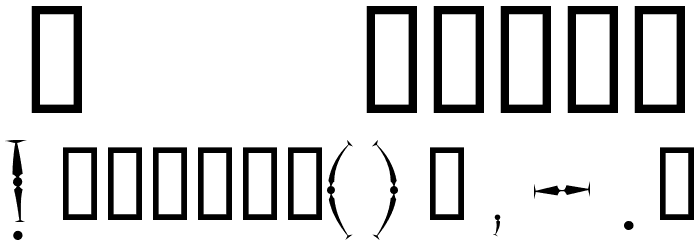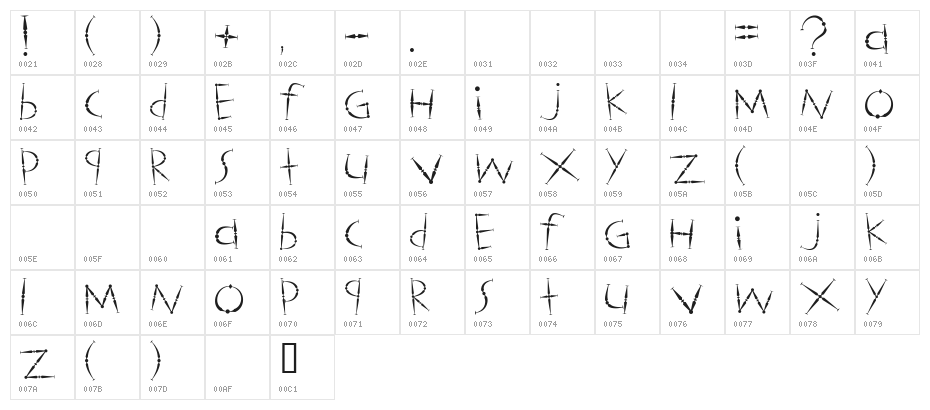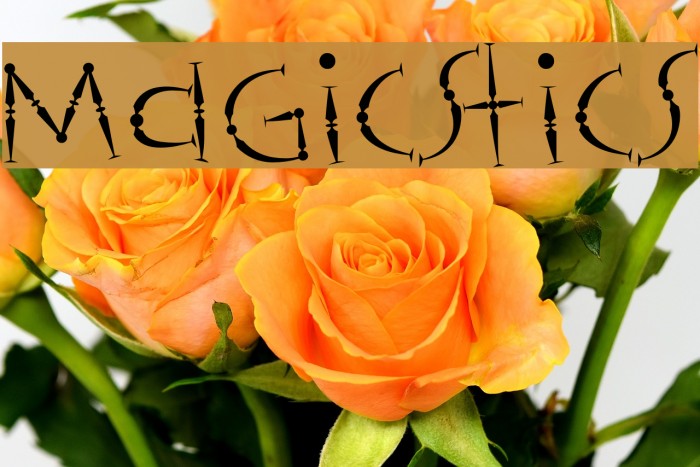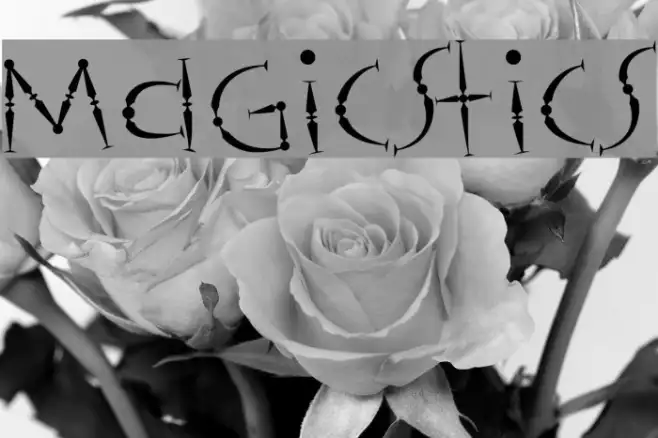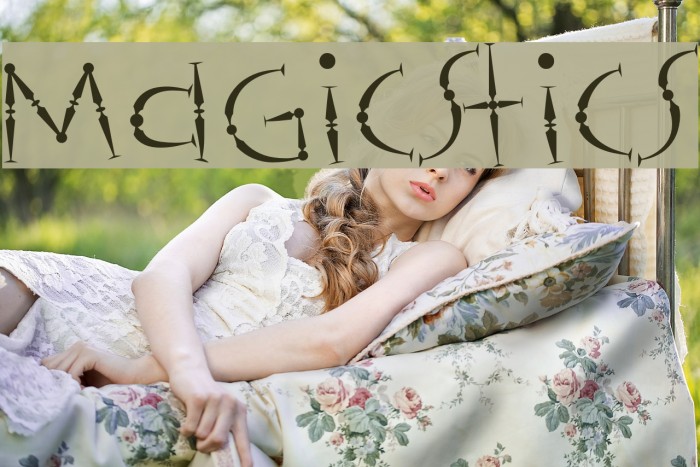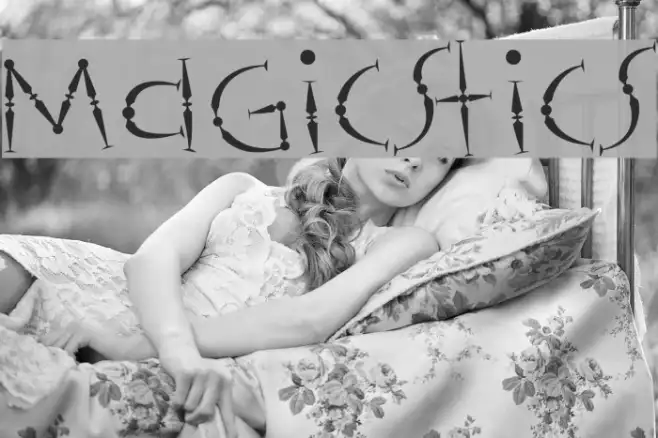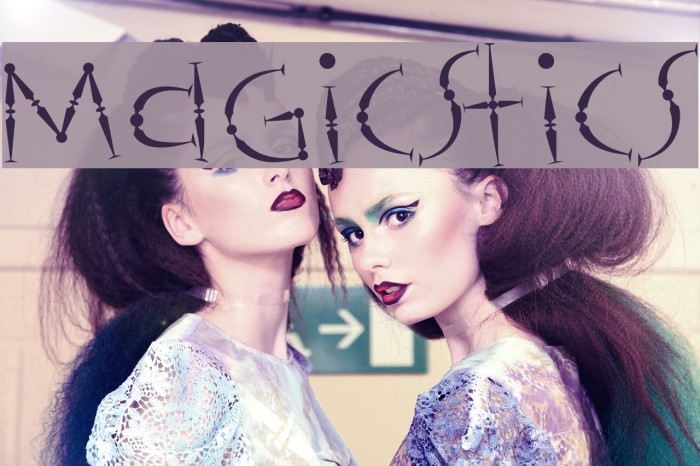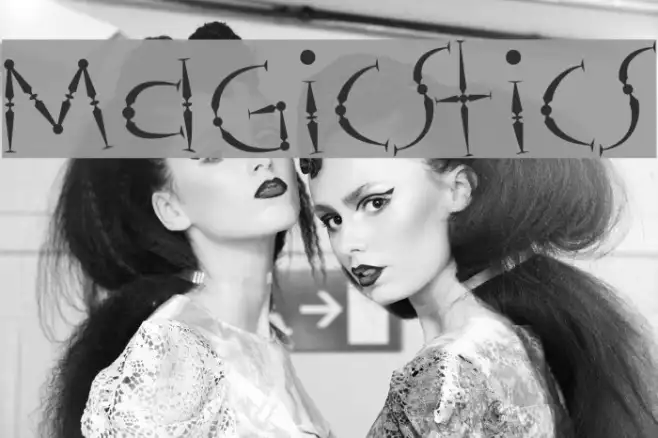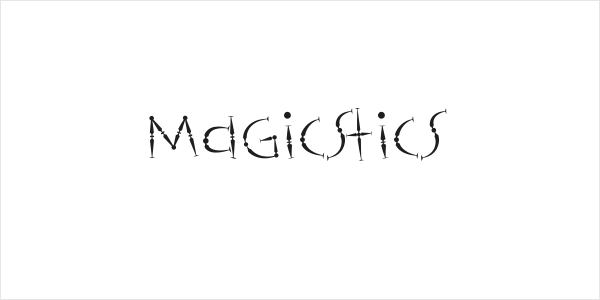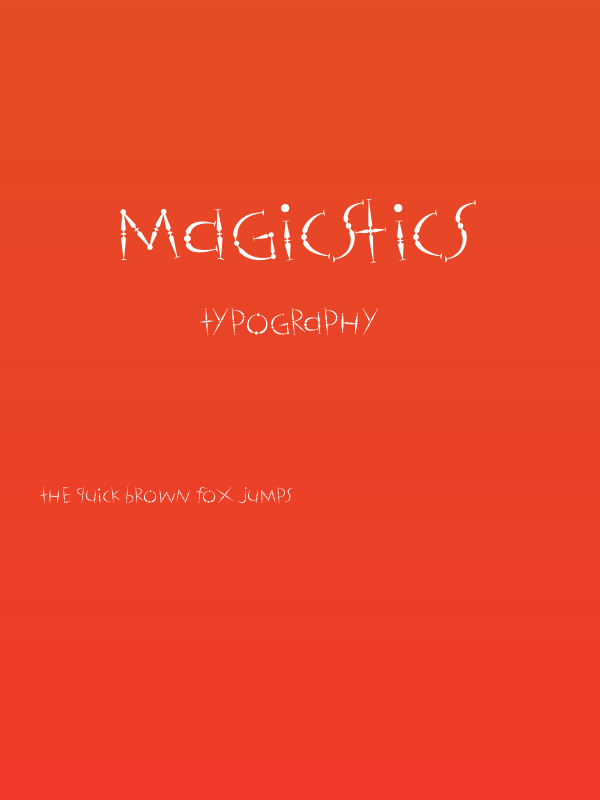
Magicstics Font
This font features a whimsical and playful design, characterized by its unique use of dots and lines that create a sense of movement and magic. Each letter is crafted with a series of connected points, giving it a hand-drawn and slightly irregular appearance. The overall look is both artistic and slightly chaotic, making it ideal for creative projects that require a touch of fantasy or enchantment. The font maintains a consistent style across both uppercase and lowercase letters, with a distinct and memorable aesthetic that stands out.
| Proposed Projects | Ideal for fantasy-themed designs, children's book covers, magical event invitations, and creative branding projects. |